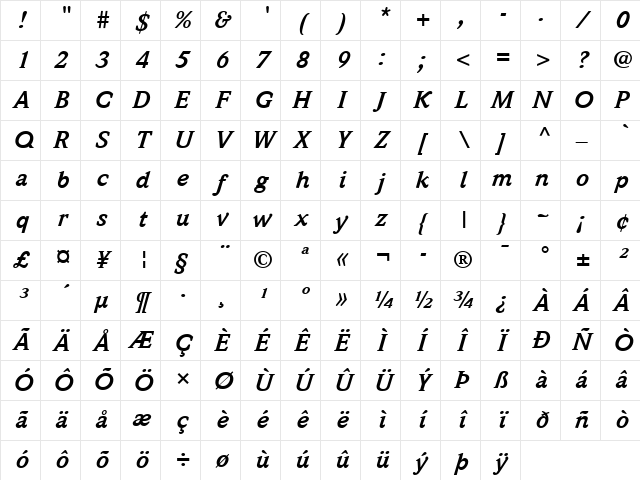
Weidemann LT Book Bold Italic
Design Context for Weidemann LT Book
Weidemann LT Book is a composed and adaptable typeface that performs quietly and consistently across a wide range of design contexts. The slanted form adds forward momentum and visual energy. Its bold stroke weight gives it real presence on the page.
Pro Tip: Use Weidemann LT Book for emphasis, pull quotes, and subheadings where its slanted energy can add rhythm to the layout.